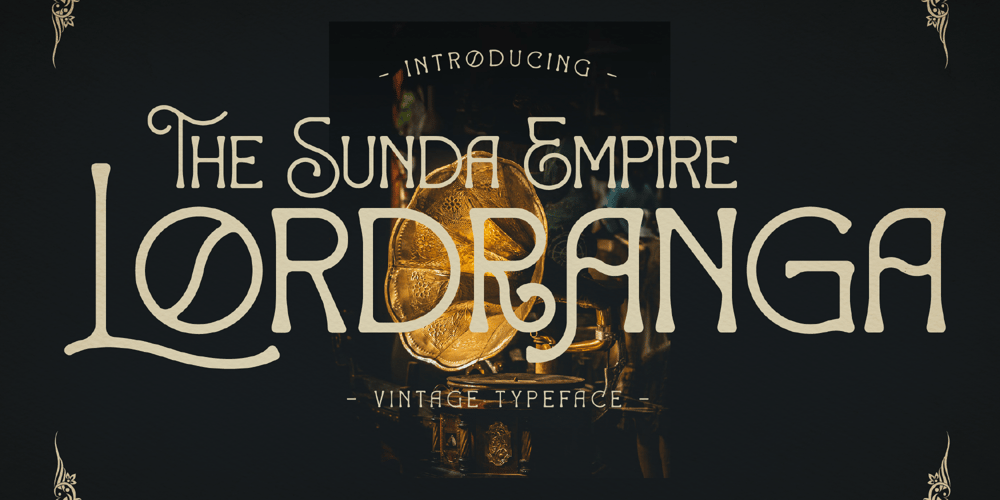
Lordranga
Lordranga font
Lordranga Font Family was designed by Heru Utama Putra and published by Letterena Studios. Lordranga contains 2 styles and family package options. Lordranga is a distinct and vintage styled serif font, with a unique style & modern look.This typeface is perfect for an elegant & luxury logo, book or movie title design, fashion brand, magazine, clothes, lettering, quotes, and so much more.